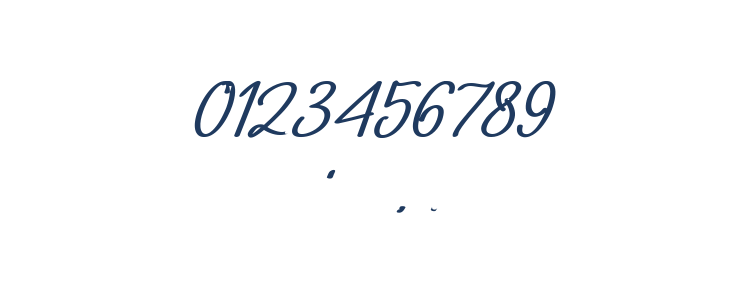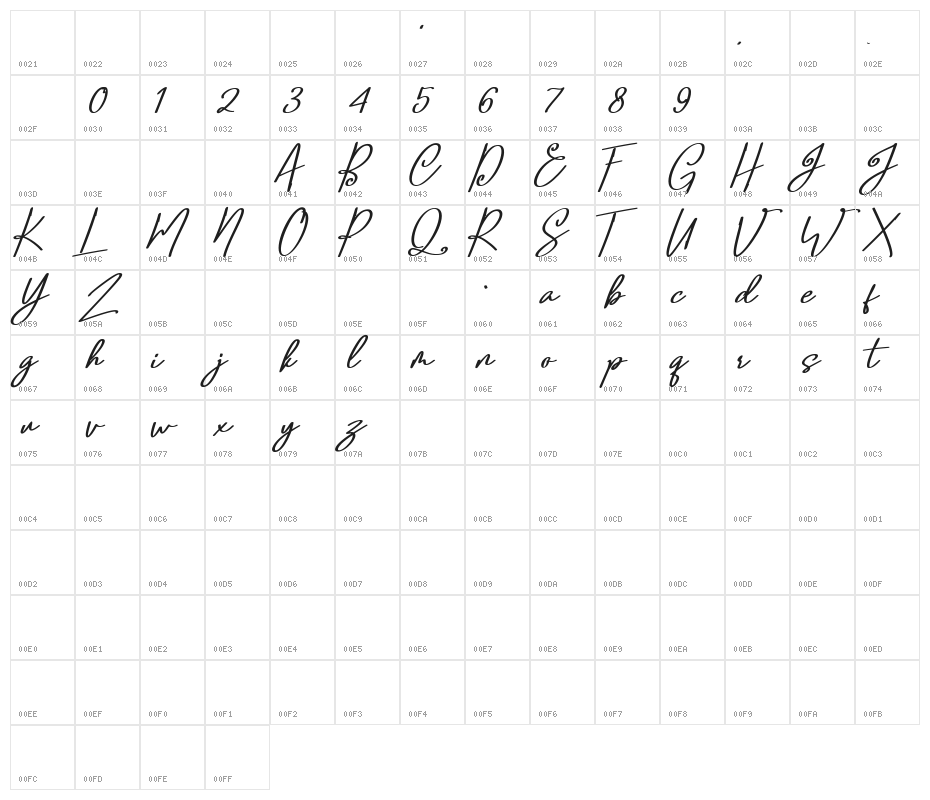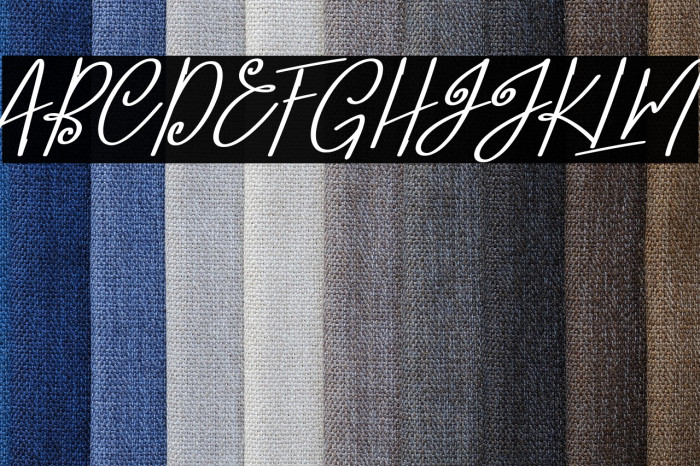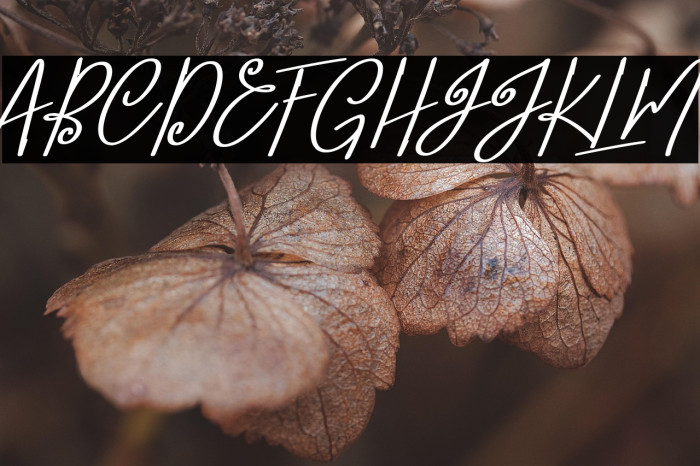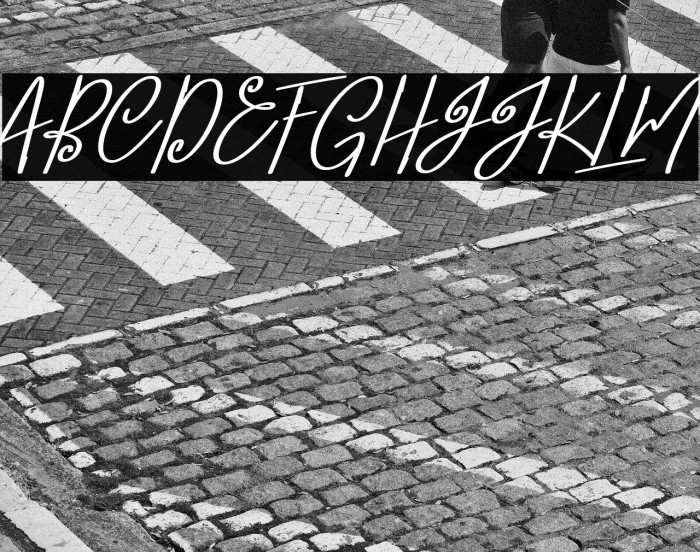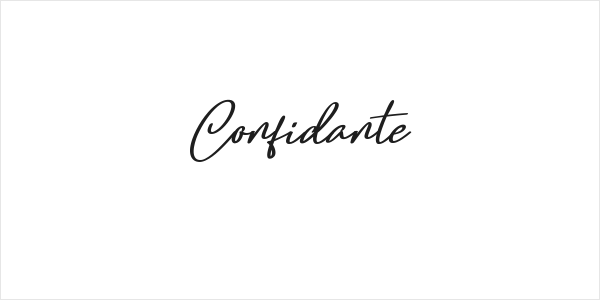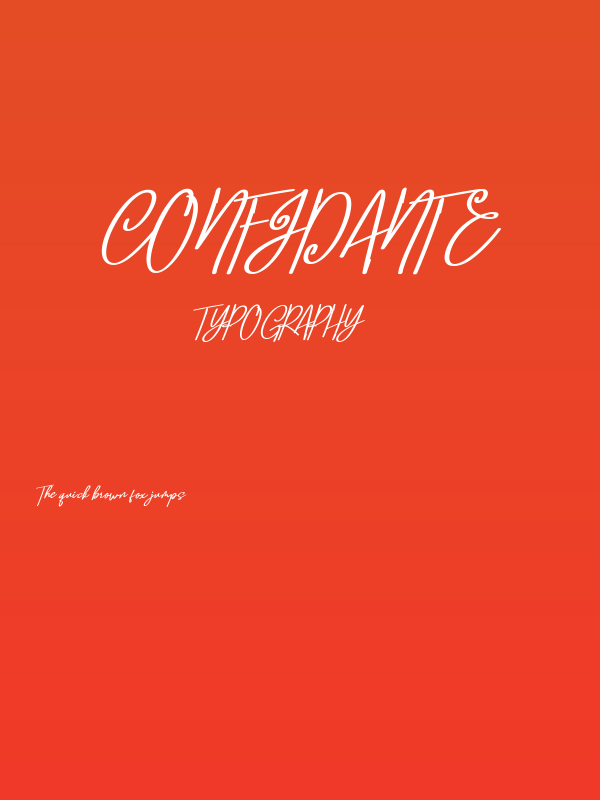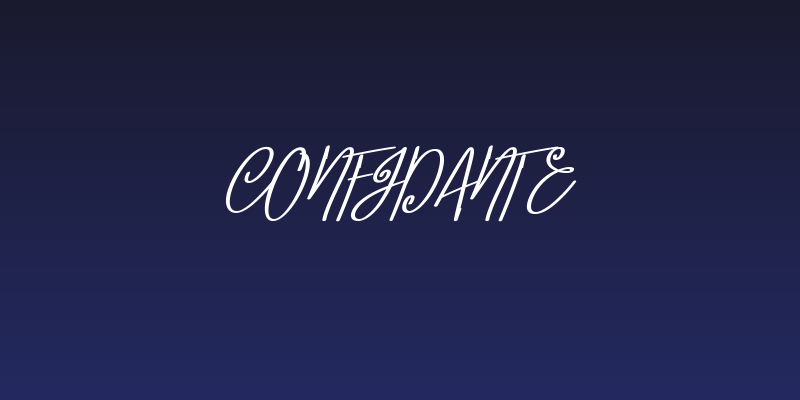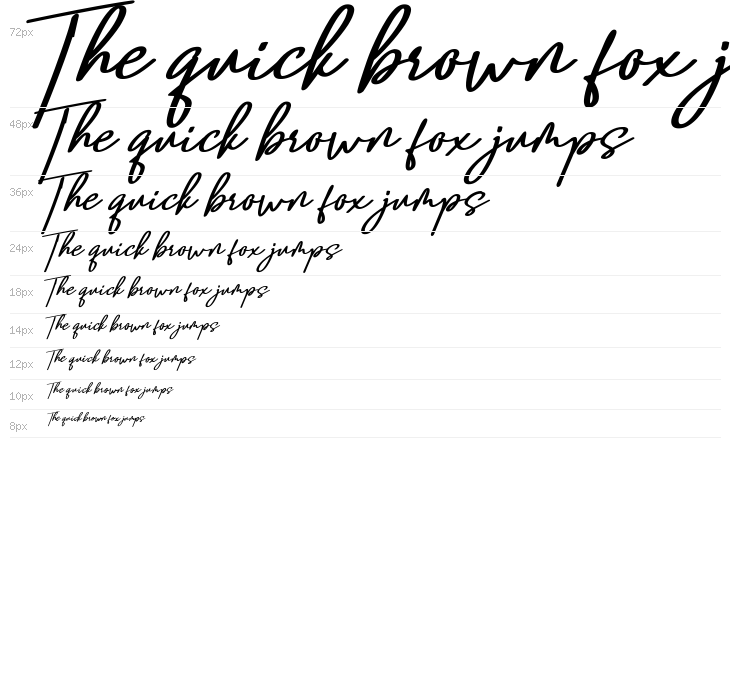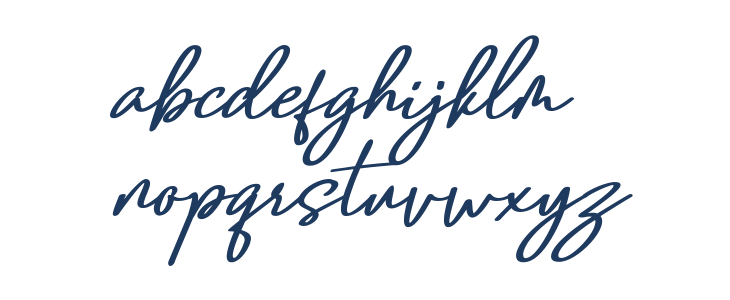
Confidante Font
Confidante Description
This font features a dynamic and fluid script style, characterized by its elegant and flowing letterforms. The uppercase letters exhibit a sophisticated flair with swirls and loops, while the lowercase letters maintain a smooth and connected appearance, enhancing the cursive nature of the typeface. The numerals are consistent with the overall style, offering a harmonious blend of curves and lines. The special characters are thoughtfully designed to match the aesthetic, making this font suitable for creative and expressive projects.
| Proposed Projects | Ideal for wedding invitations, greeting cards, branding, and logo design where a touch of elegance and personal flair is desired. |